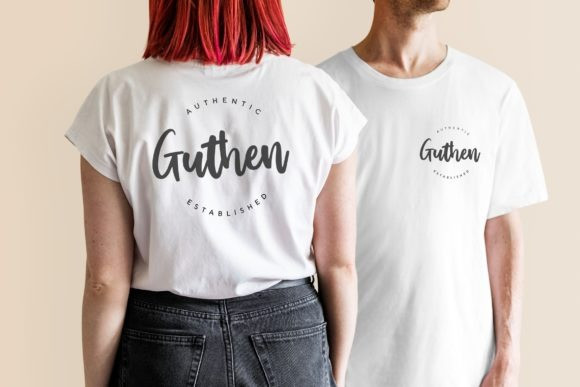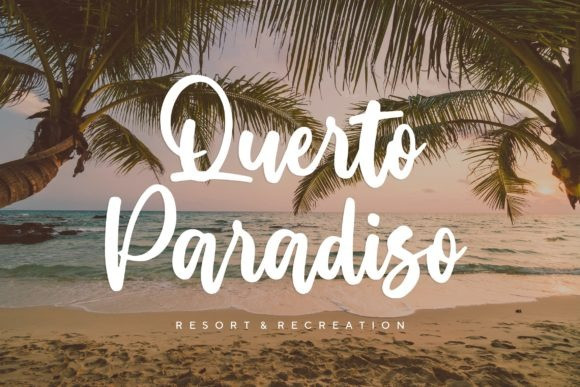
Wallaby Script Font
Wallaby Modern Handwritten Typeface. Set of multicolored bright letters for inscriptions and your design, very suitable as to make adorable invitation for wedding, birthday, special day and also perfect for your other projects branding
Designer Name: Vz Type